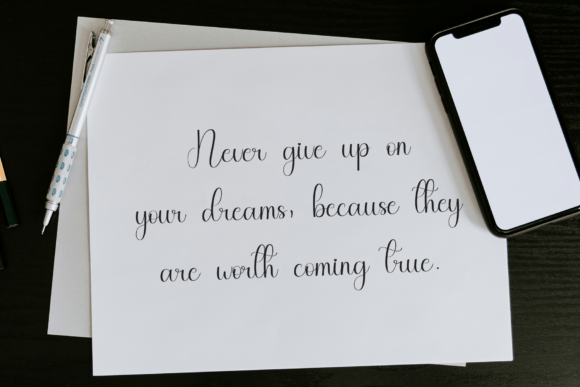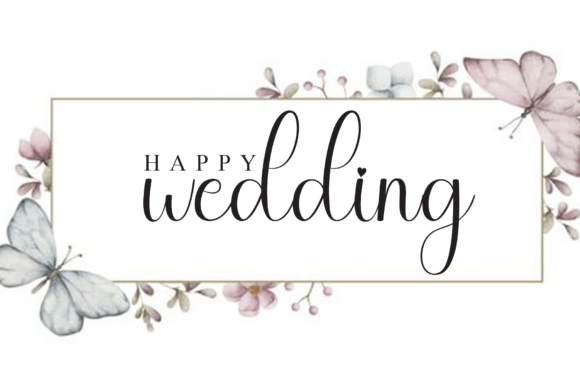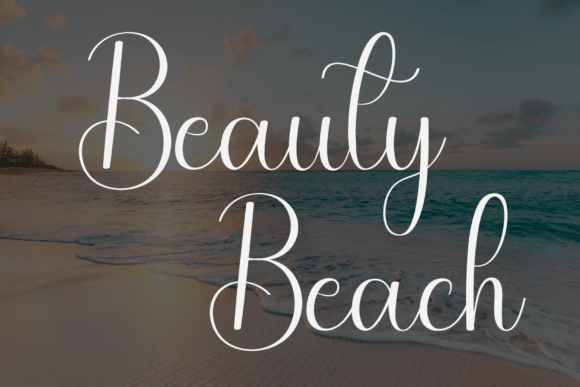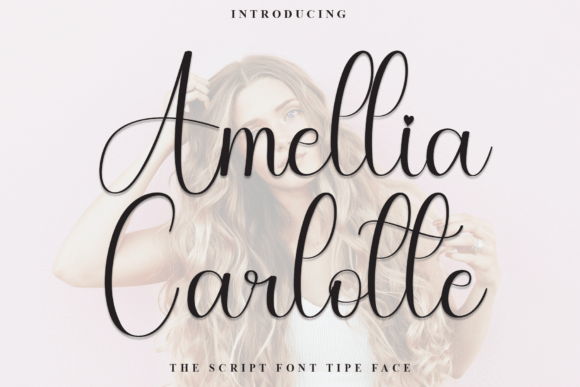
Introduction to Amellia Carlotte Font
Amellia Carolle is a graceful and romantic script font designed to elevate feminine branding and heartfelt designs.
Featuring delicate letterforms, soft curves, and a charming heart accent, it adds a personal, handwritten touch to wedding stationery, boutique logos, social media posts, and beauty packaging Amellia Carolle’s elegance makes it the perfect choice for those seeking sophistication with a dash of playfulness.